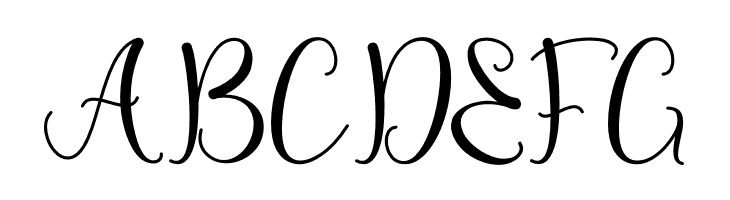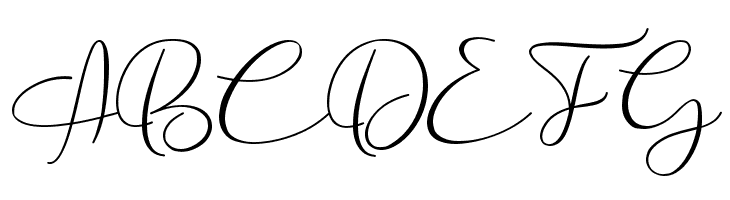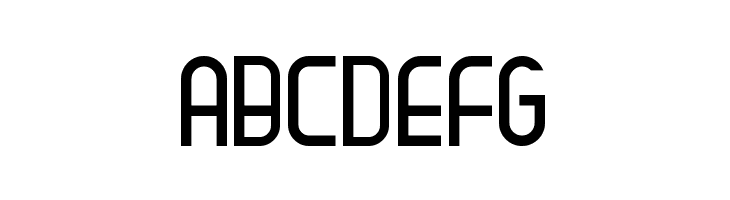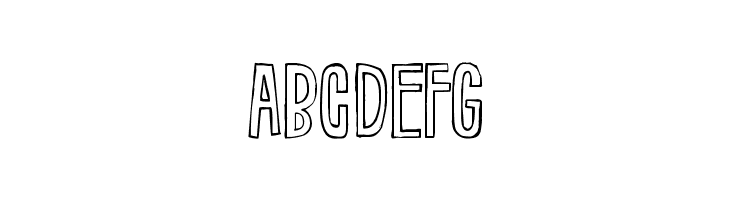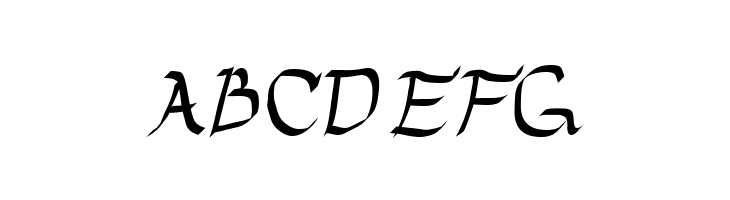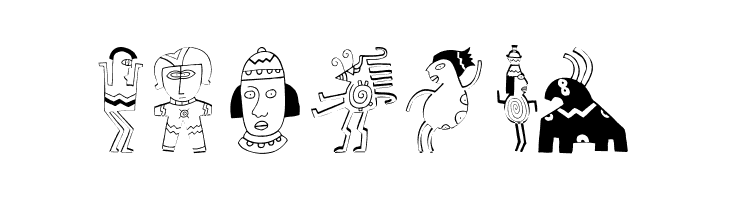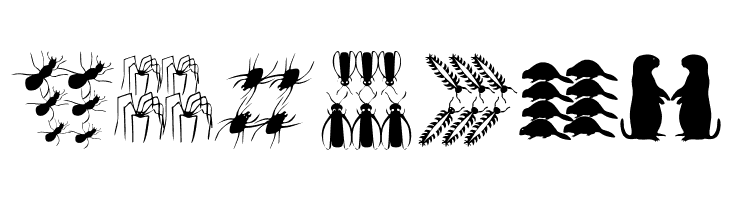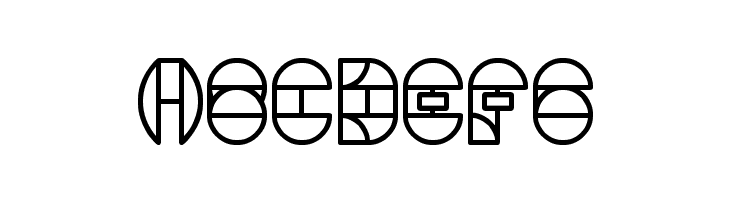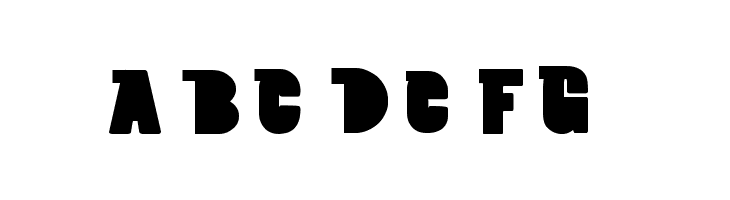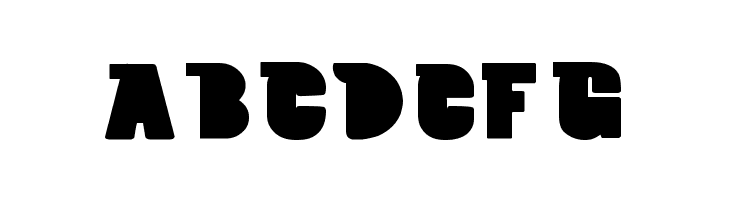
• DRAGON FLY
A geometric and abstract font with bold lines and circular elements.
• Drawrite
A playful, hand-drawn font with bold, outlined characters.
• Dream Christmas - Personal Use
A whimsical and flowing script font with elegant curves and loops.
• Driana Brideth
An elegant script font with flowing, interconnected letters and graceful swashes.
• Drunken Calligrapher
• Duchet Chanford
A bold, decorative font with playful cutout designs and high contrast.
• Duchet Chanford Bold
• DueMillePix
A pictogram font with tribal and whimsical illustrated glyphs.
• DueTresQuattro
A pictogram font featuring animal and insect silhouettes for each character.
• Dugal
A modern, geometric font with clean, rounded edges and consistent stroke widths.